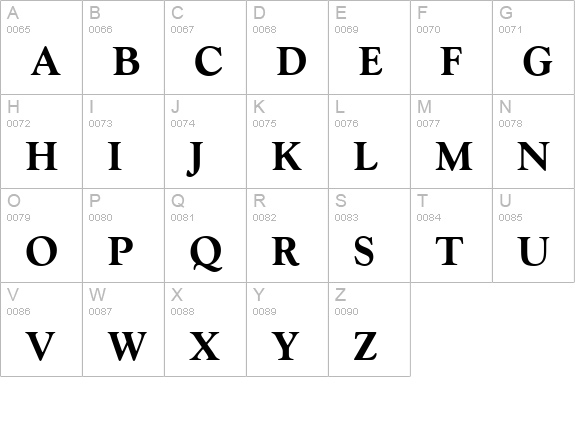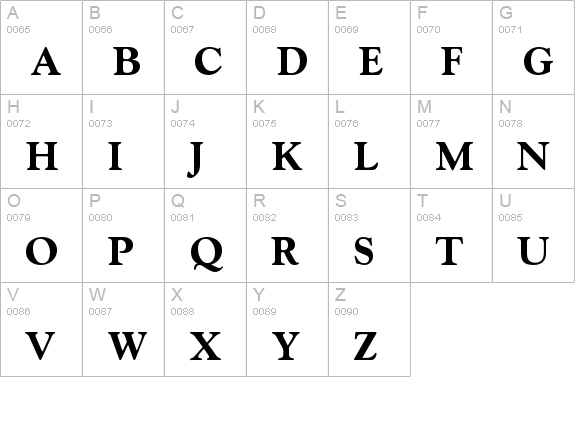
Goudy Extra Bold CG ATT Font Details
Goudy Extra Bold CG ATT is a strong, high-contrast variant in the Goudy typeface family \xE2\x80\x94 well suited to headlines, attention-grabbing titles, and strong calls-to-action.
Goudy Extra Bold CG ATT font is a striking and impactful typeface that commands attention with its bold and robust letterforms. Designed with precision and elegance, this font exudes a sense of confidence and authority, making it perfect for headlines, titles, and other prominent text elements. Its thick strokes and sharp details give it a timeless and classic look that is sure to make a statement. Best of all, Goudy Extra Bold CG ATT font is available for free download at FontsMarket.com. This means that you can easily access and use this high-quality font in your projects without any cost. Whether you're designing a poster, logo, or website, this font will add a touch of sophistication and professionalism to your work. Download Goudy Extra Bold CG ATT font today and elevate your designs with its bold and impactful style.